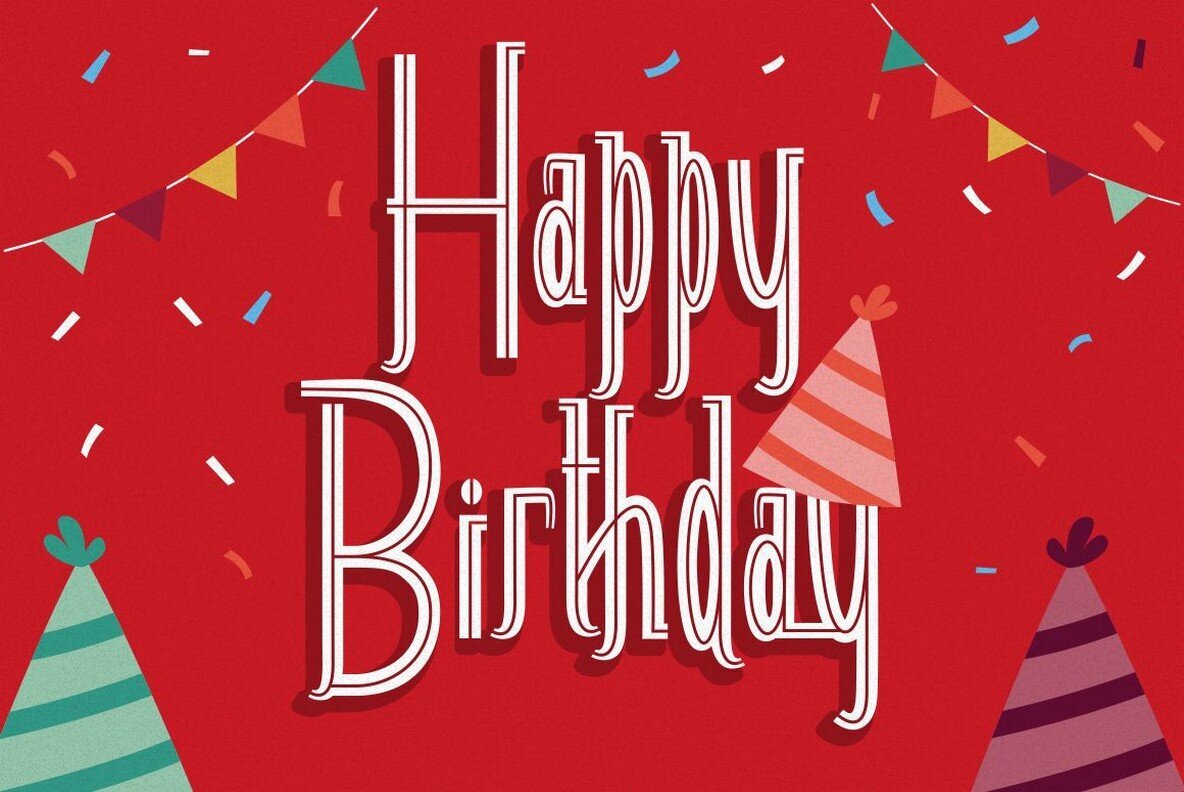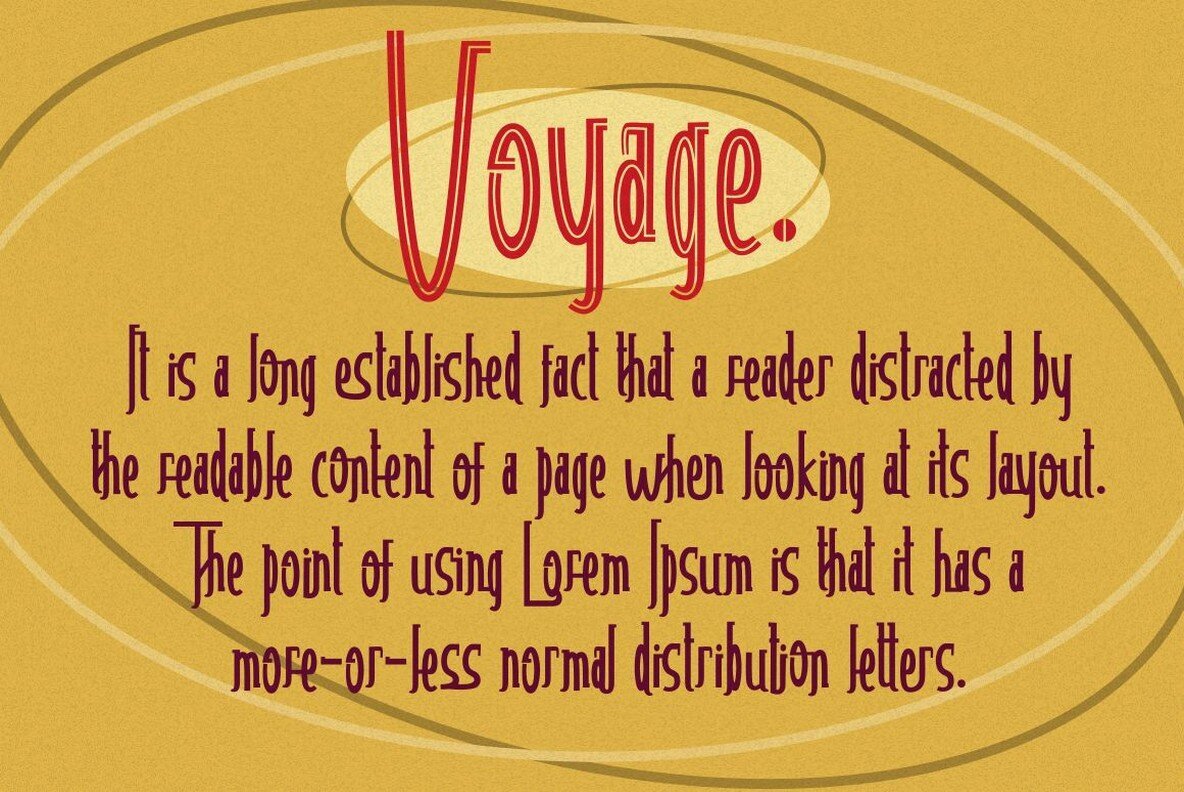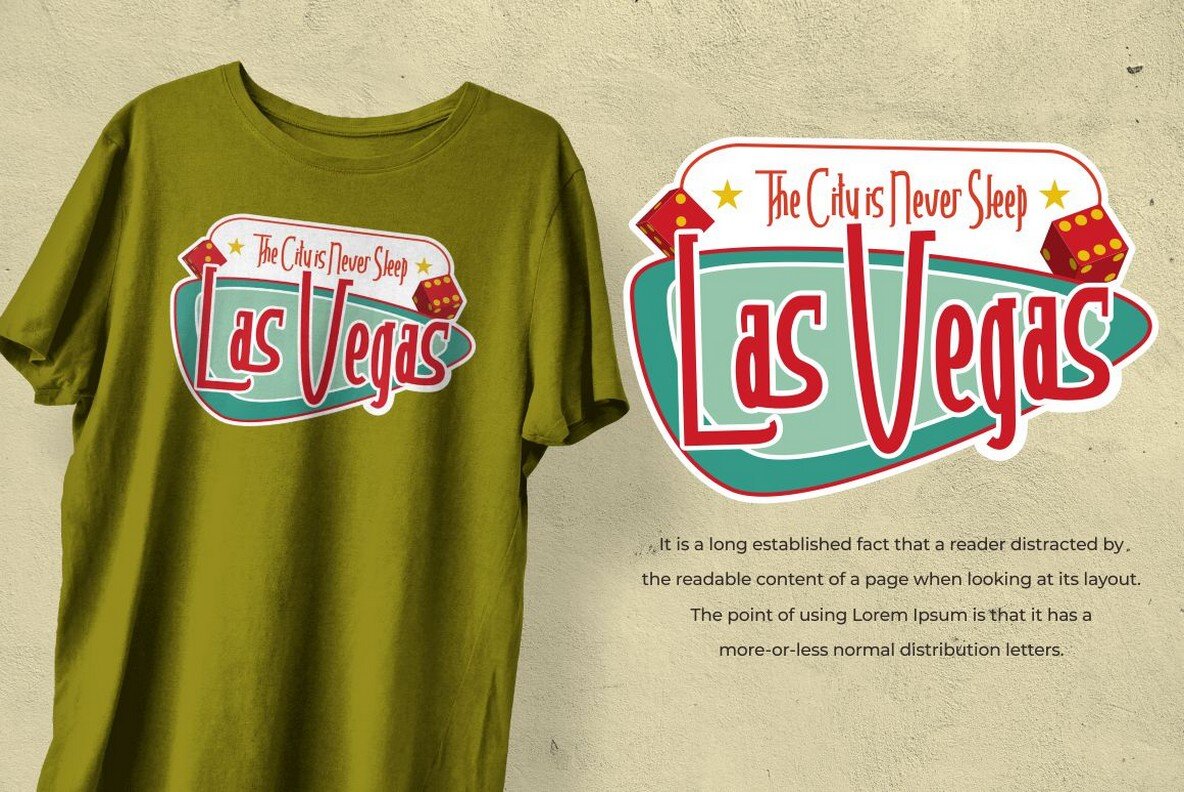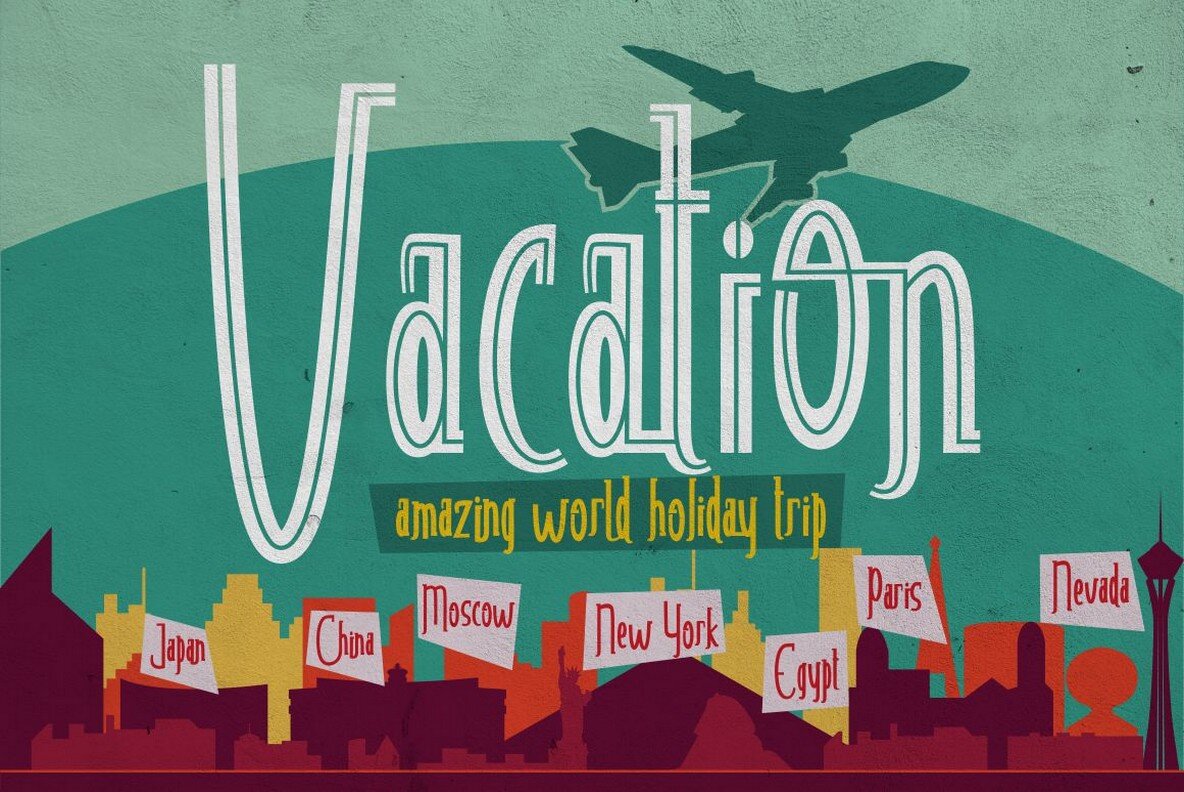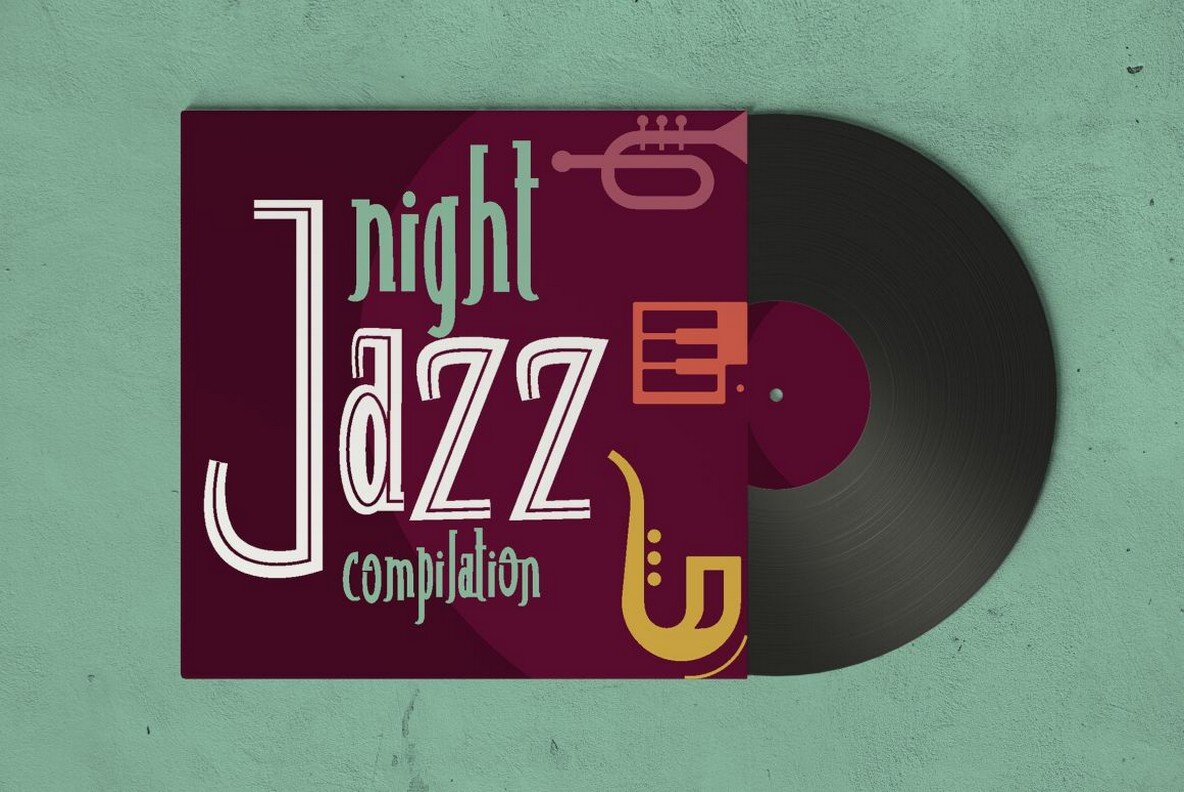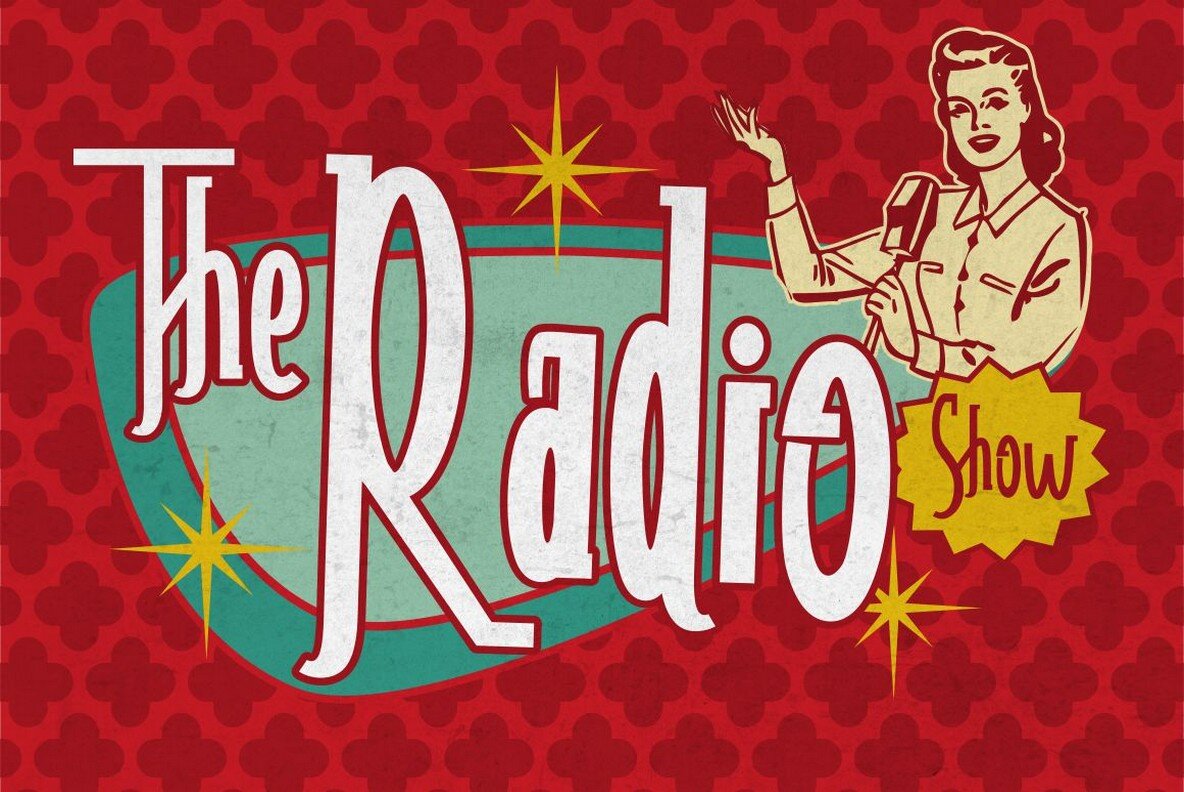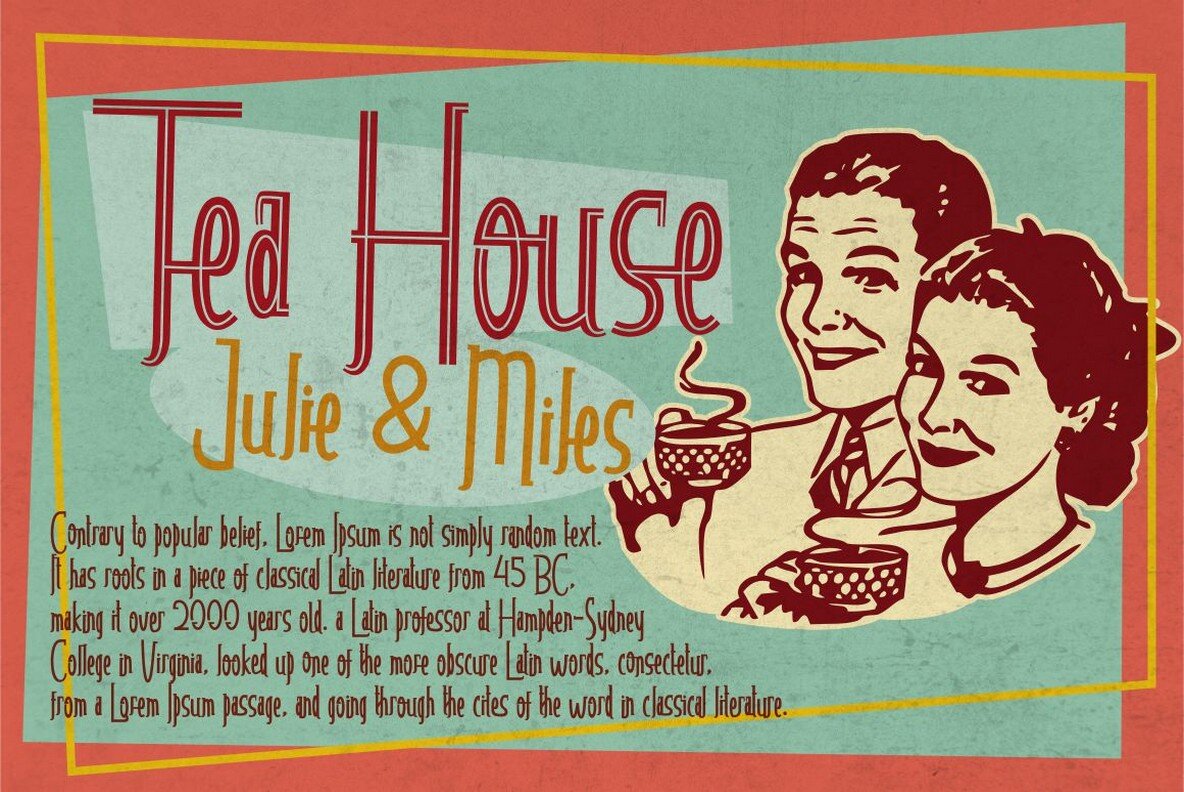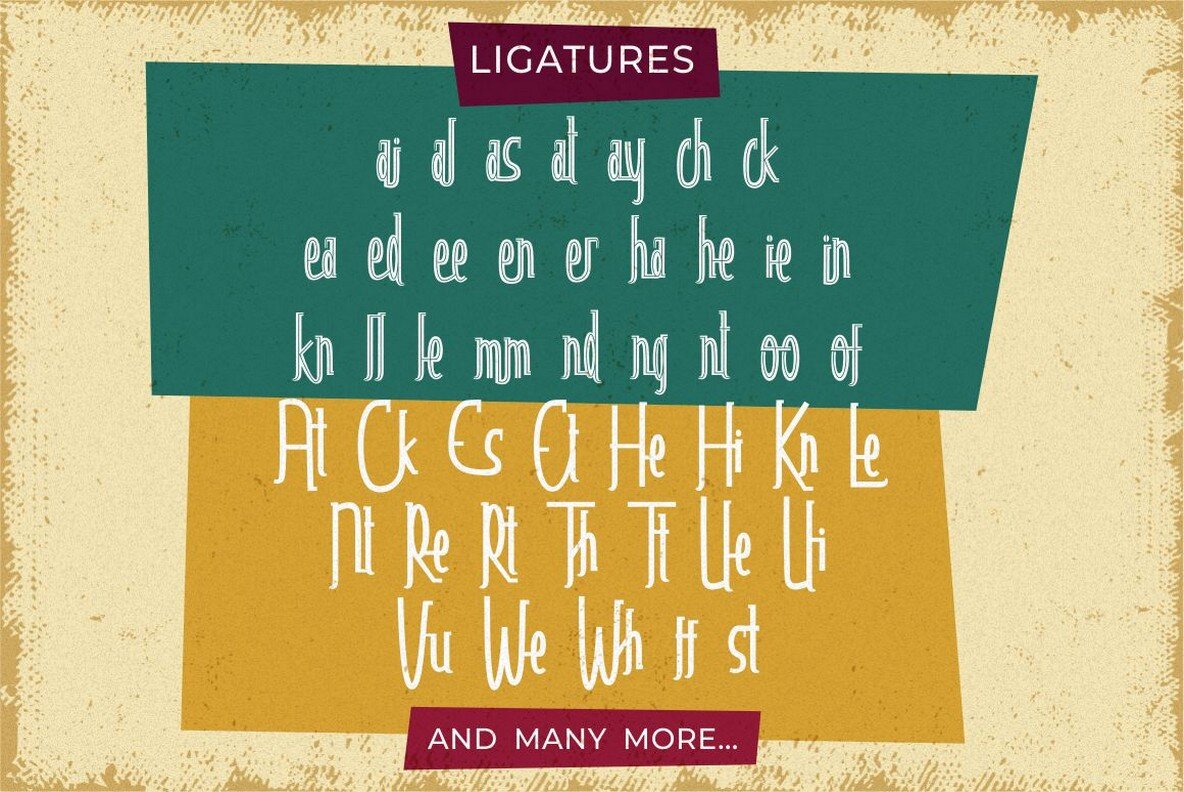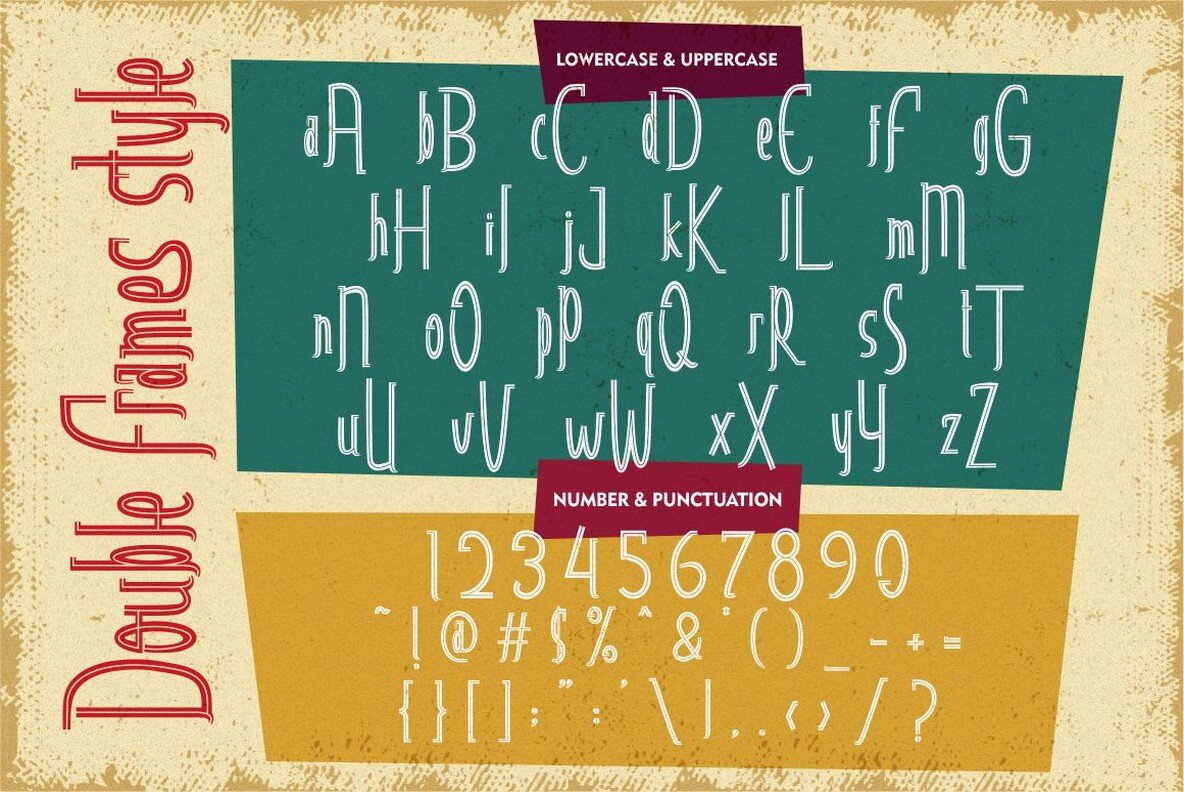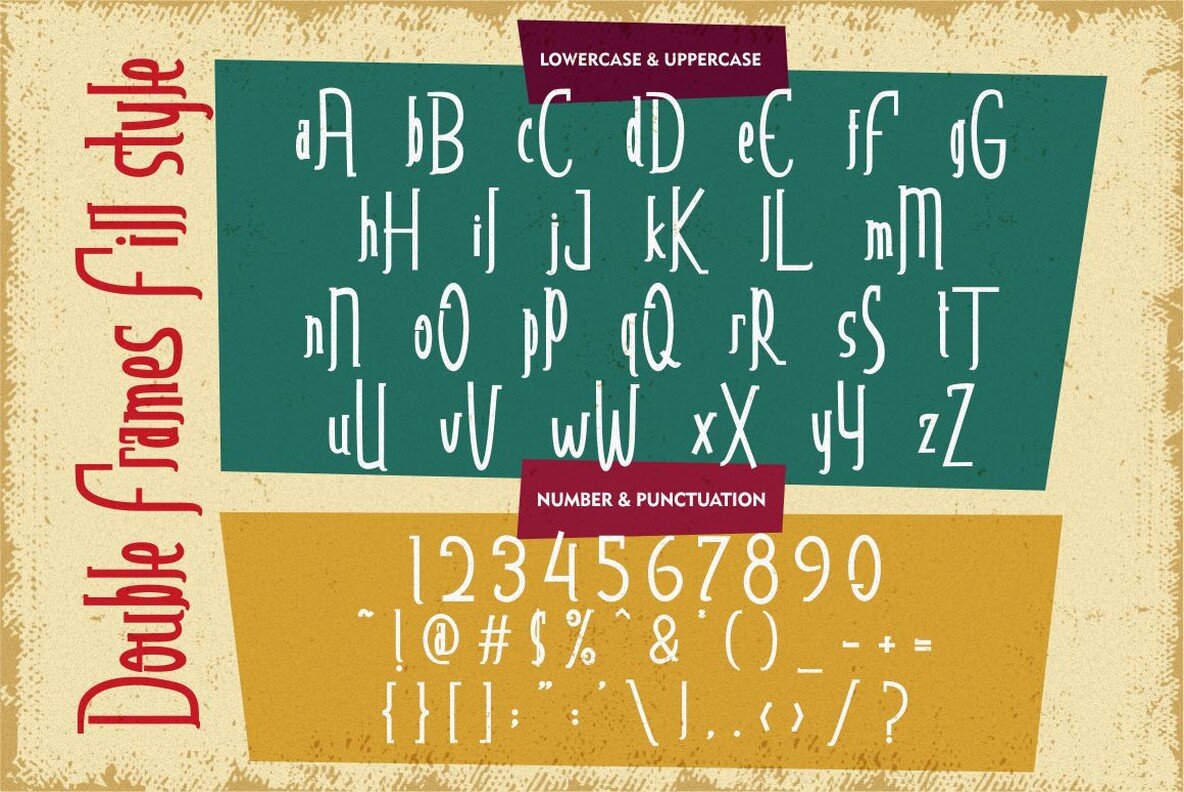
Double Frames Font
Double Frames Regular
Double Frames Fill
Double Frames offers a creative take on display fonts, featuring unique forms that stand out in any project. Available in both standard and decorative styles, this typeface blends modern design with robust presentation, making it a must-have for designers seeking a bold statement. Each letter is meticulously crafted, ensuring remarkable clarity and detail, especially in uppercase.Double Frames: Distinctive Display Font